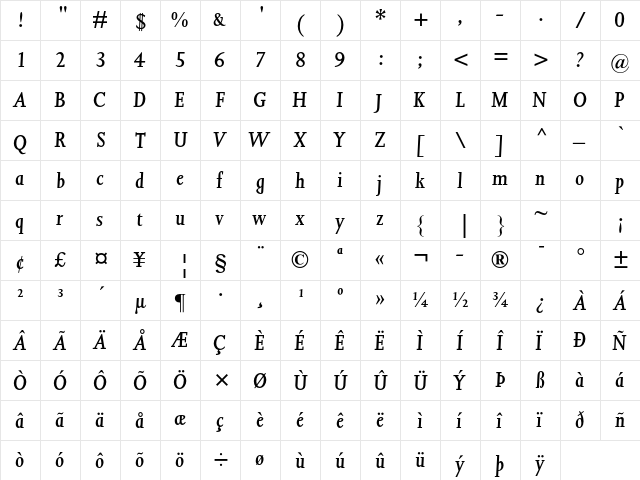
Joanna MT Std Semibold Italic Font Preview
| Designer | Eric Gill |
Design Context for Joanna MT Std Typeface
Joanna MT Std offers clean, dependable letterforms without strong stylistic allegiance, making it a practical choice for designers who need flexibility. The dynamic lean of this cut emphasises speed and emphasis in any layout. The heavy weight commands attention and anchors typographic hierarchies.
Pro Tip: Try Joanna MT Std for annotation and caption copy alongside an upright companion — the contrast in angle creates a dynamic but ordered typographic system.